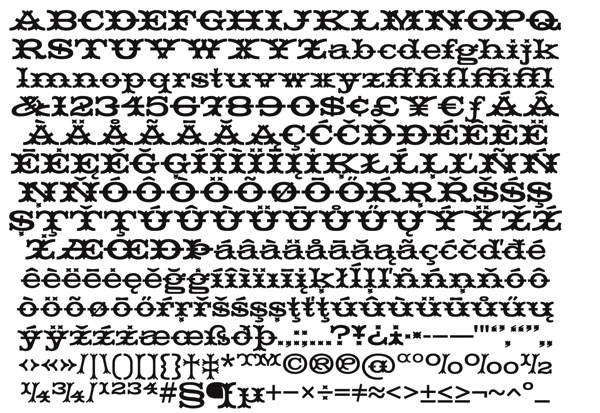
Kiosk Fonts
[Frank Grießhammer]
Kiosk Fonts (Berlin) was founded in 2008 by Frank Griesshammer (b. 1983, Nuremberg, Germany), a graduate of HBKsaar in Saarbrücken (2008) and of the Masters program in type design at KABK (2010). His graduation project in Den Haag involved the multi-pen typeface Quixo (2010), which seems to be have just the right flexibility for packaging and ads. Frank lived in Den Haag, but joined Adobe's type department in 2011. His alphabets from 2008: Fleischwurst Fett (blackletter), Drückerei (grunge by Haiko Günther), Sommerfest, Rex Mundi (by Haiko Günther), PX Barok (a stitching and needle typeface), Ghana Signpainters Divine Healer (by Haiko Günther), Pappe (randomized cut-out face), Wüste Fraktale (a pixel blackletter by Haiko Günther), A4, Ghana Signpainters Safari (by Haiko Günther), Ghana Signpainters Cocktail (comic book and ad style by Haiko Günther), Format, Black Frituur (blackletter by Haiko Günther), Monaural (geometric), Steelcut (based on Woodcut; by Haiko Günther), Coswig, Roundenau (very rounded). In 2009, he did revivals of Memphis (original by Rudolf Wolf, 1929) and Stempel Elan (original by Hans Möhring, 1936). The latter typeface was published by Linotype. In 2013, he made HWT Tuscan Extended (Hamilton Wood Type). Hamilton Wood Type explains: It is based on the 1872 William Page & Co. version, while also bearing a very close resemblance to the Morgans & Wilcox Tuscan Extended and No. 2106 from Tubbs Manufacturing Co. It is similar to the Heber Wells Tuscan Extended. All four manufacturers were eventually acquired by Hamilton. The Hamilton designation for this design was simply No. 303. The National Printers' Material Co. of New York also offered a similar Tuscan Extended. FontShop published his school project font Quixo as FF Quixo in 2013. Quixo won an award at TDC 2014. In 2014, Frank designed the free Source Serif typeface family at Adobe, to accompany Paul Hunt's Source Sans Pro (2012). It is a transitional family influenced by Perre Simon Fournier's styles from 1742. Google Web Fonts download link. CTAN download. He designed the Latin, Greek, and Cyrillic glyphs that are included with Source Han Serif (2017). In 2021, Frank Griesshammer updated Source Serif. This new version of Source Serif supports six weights and five optical sizes, both in static and variable formats. Design changes were made from the original Source Serif Pro. At Adobe, he participated in Adobe Handwriting (based on the handwriting of Frank Grießhammer, Ernest March and Tiffany de Sousa Wardle). Speaker at ATypI 2011 in Reykjavik. Speaker at ATypI 2013 in Amsterdam where he spoke on a renewed effort at Adobe with respect to kerning. In 2019, Colophon and Frank Griesshammer released DM Serif Display and DM Serif Text at Google Fonts. Based on Adobe Serif Pro (by Frank Griesshammer), it is a high-contrast transitional typeface with only one weight. Github link. |